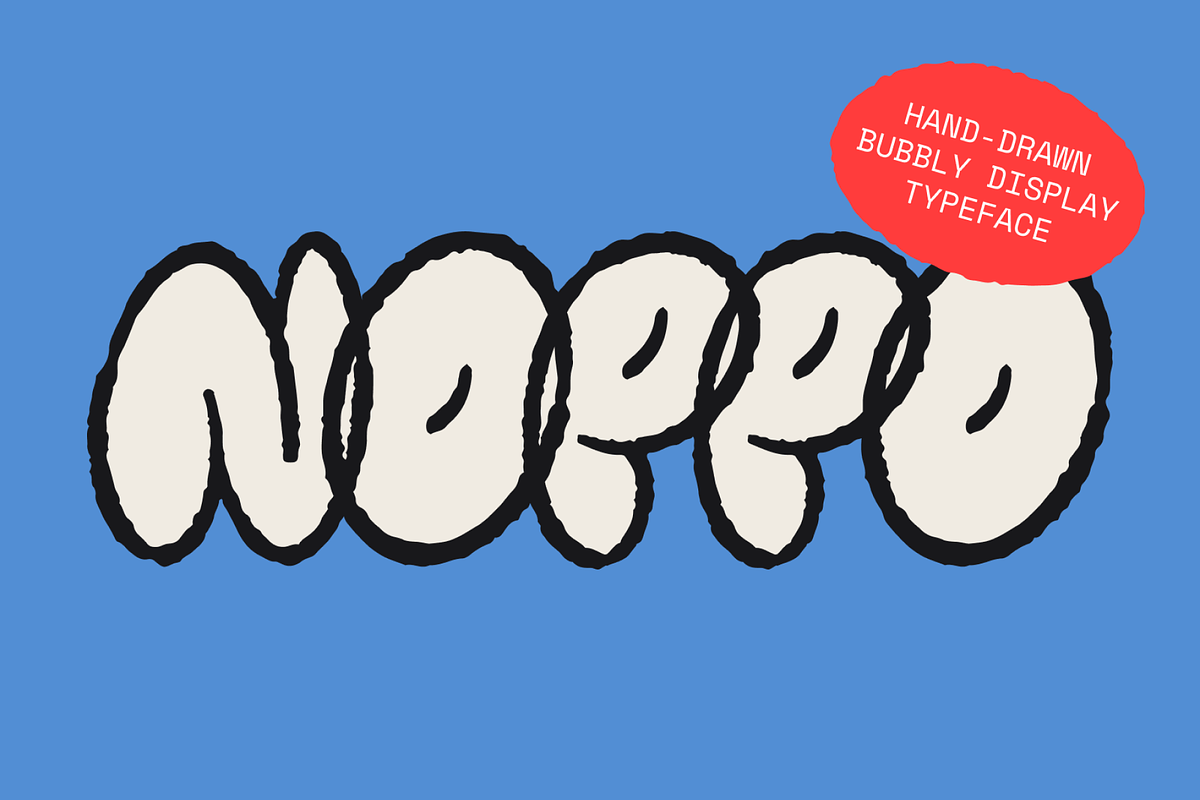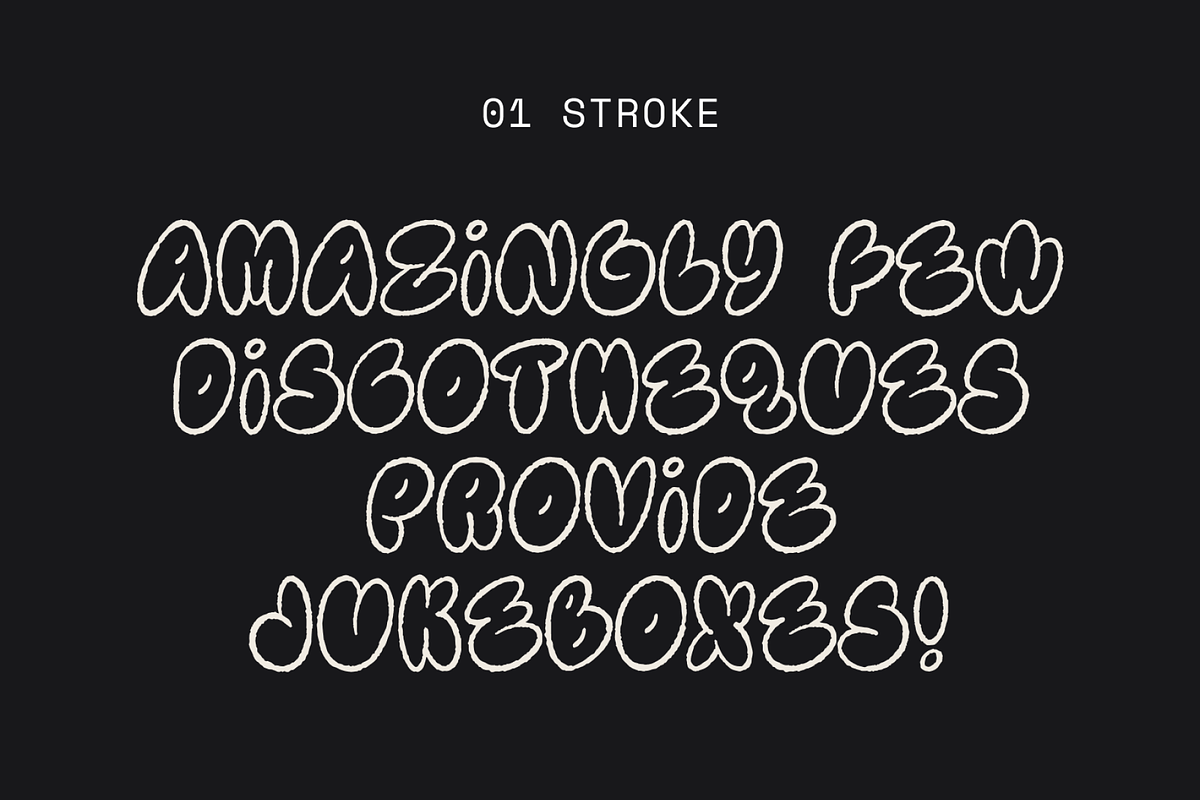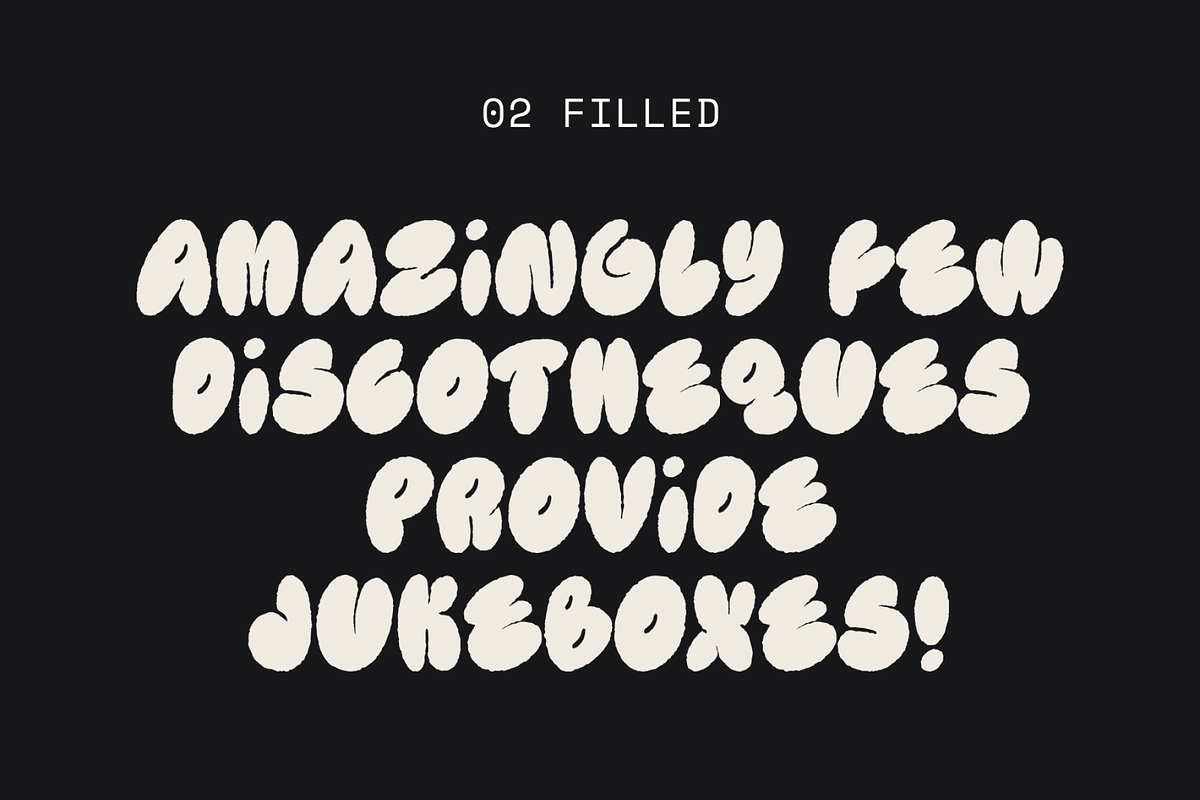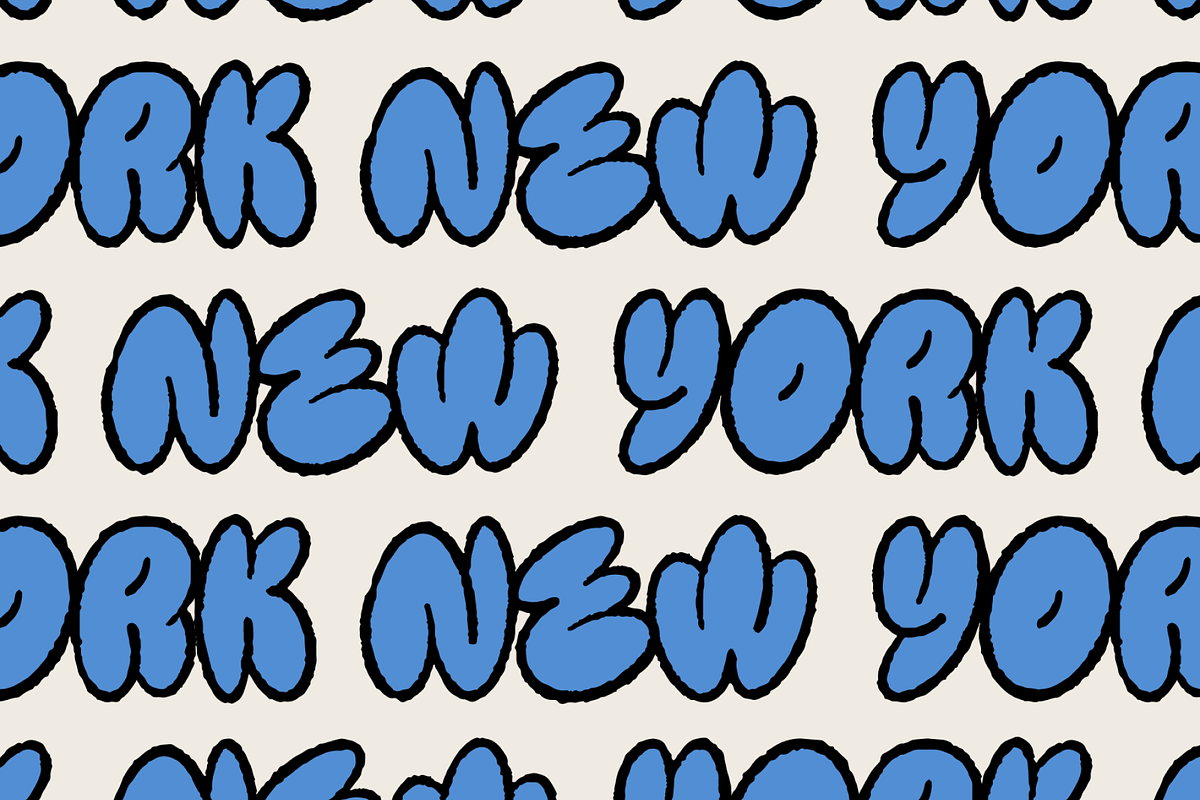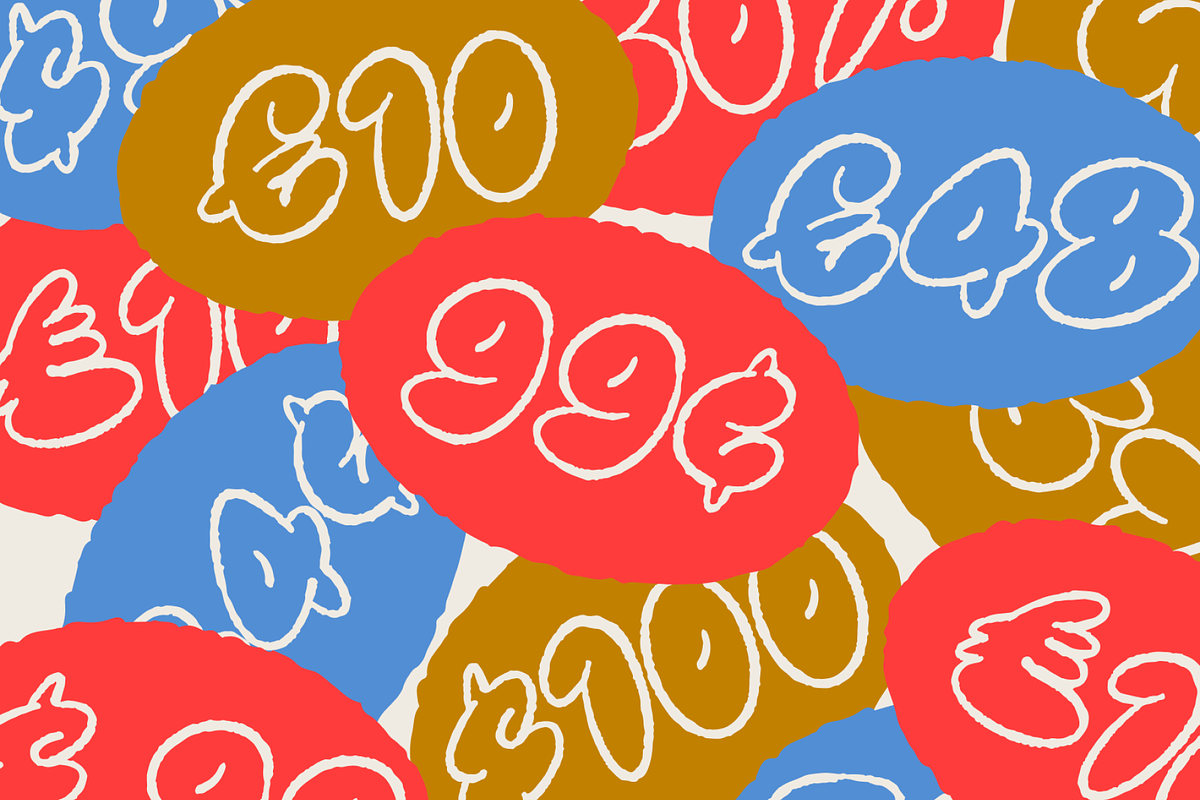
NOPPO — hand-drawn bubbly typeface
NOPPO is a hand-drawn bubbly graffiti-inspired typeface with textured edges and whimsical ligatures — add some fun to your designs! NOPPO comes in two styles: solid and stroke.
NOPPO supports a wide range of Latin-based languages: Afrikaans • Albanian • Croatian • Czech • Danish • English • Estonian • Filipino • Finnish • French • German • Indonesian • Italian • Kurdish • Māori • Norwegian • Oromo • Portuguese • Romanian • Romansh • Shona • Slovenian • Somali • Spanish • Sundanese • Swahili • Swedish • Zulu and more.